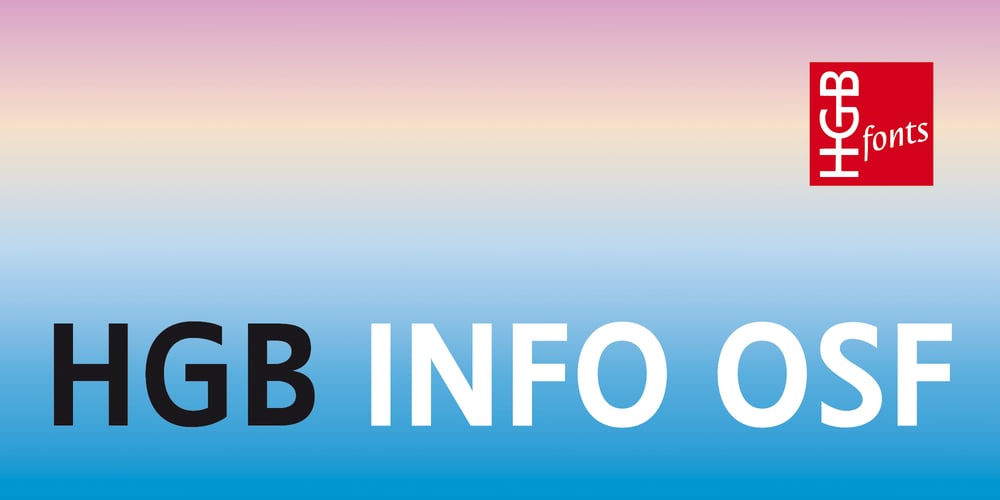
HGB Info OSF Font Family was designed by Hellmut G. Bomm and published by HGB fonts. HGB Info OSF contains 4 styles and family package options. It’s nice when a font provides old style figures, small caps and alternate letters. But what to do if my typesetting program doesn’t support Open Type features? The solution may be old-fashioned, but it’s effective: the variants are placed in separate font families: Standard, Old Style Figures (OSF), and Small Caps (SC). Any word processor can handle it. As a special feature, my OSF fonts also contain alternative letters such as a looped g or descenders in the italic f.